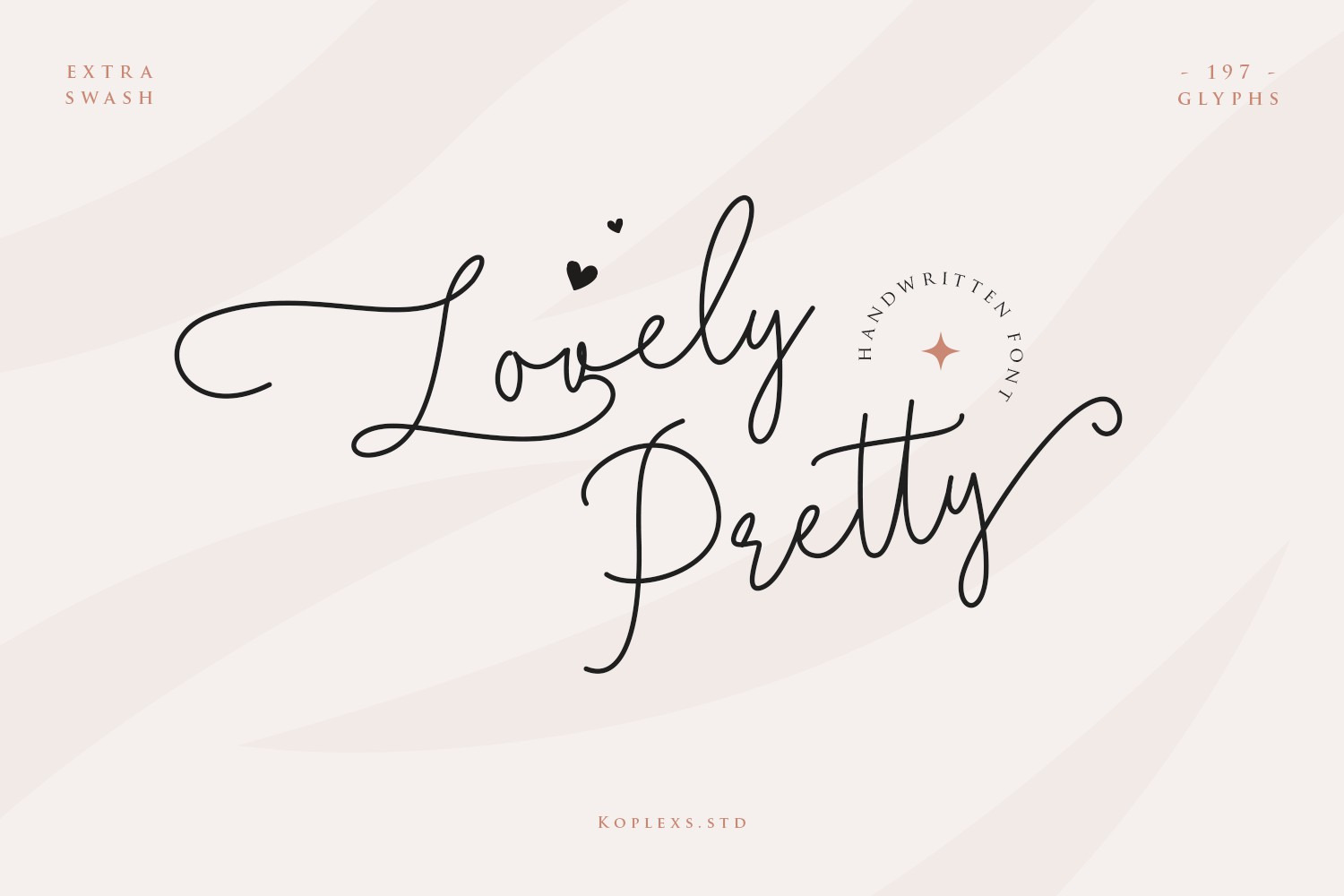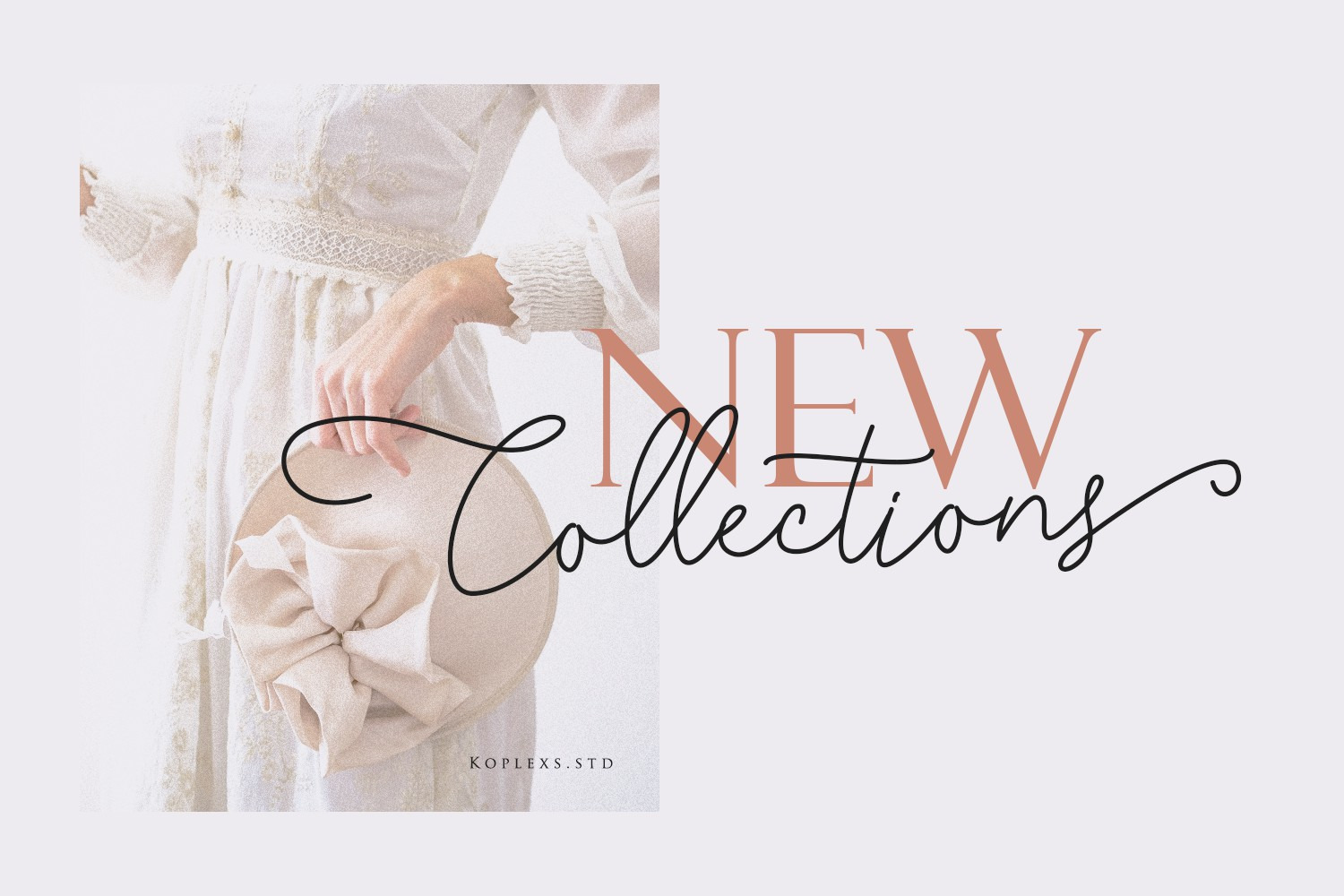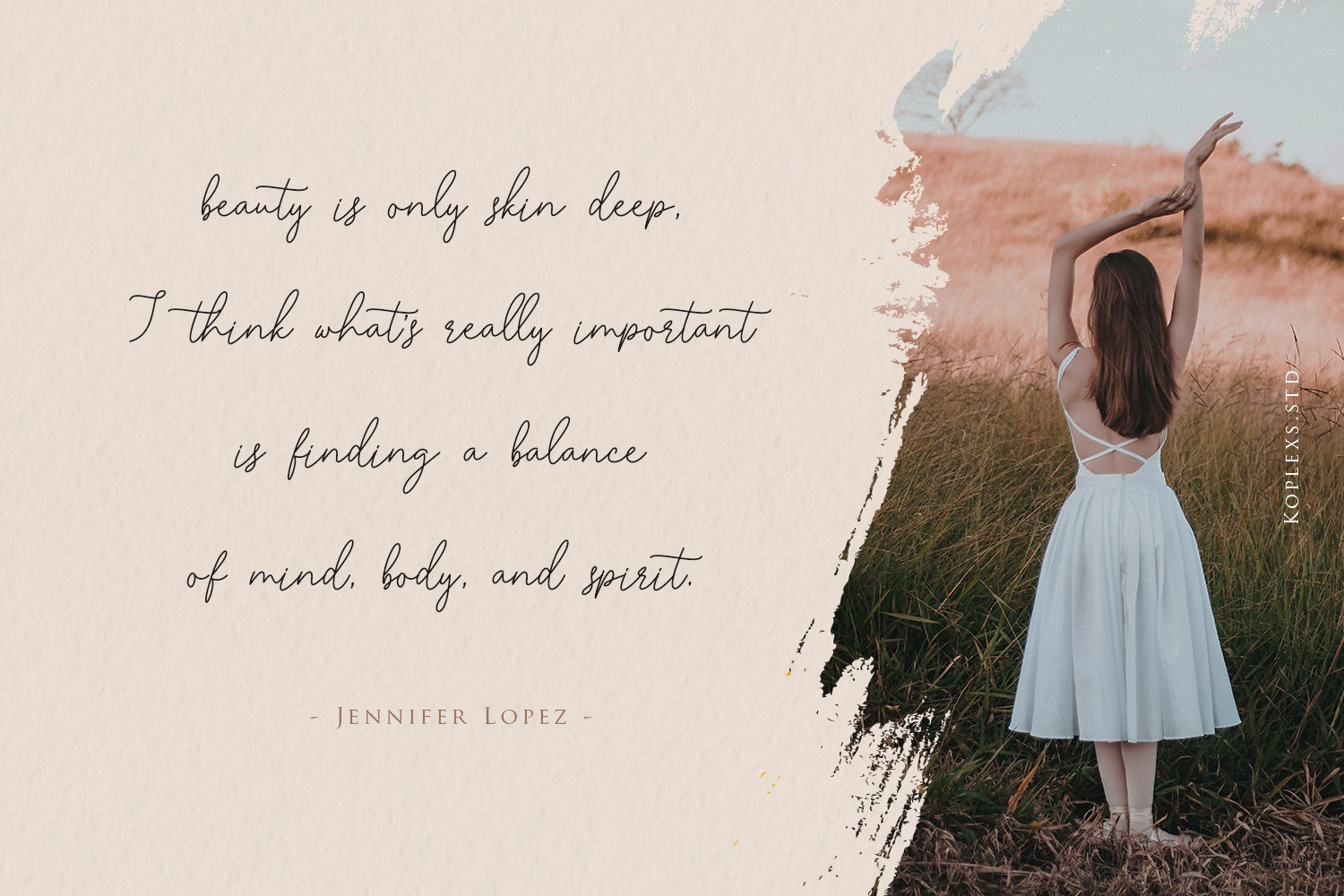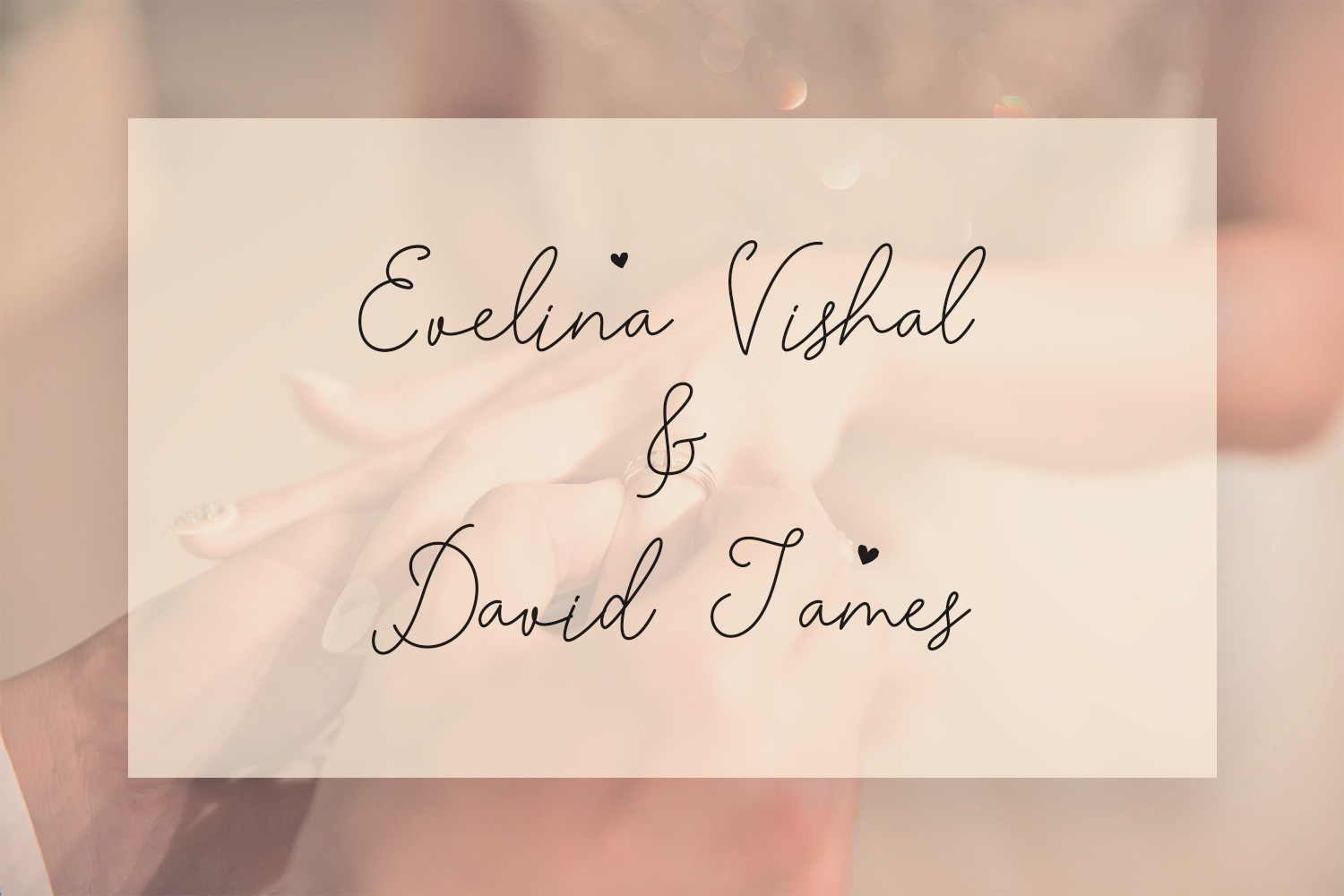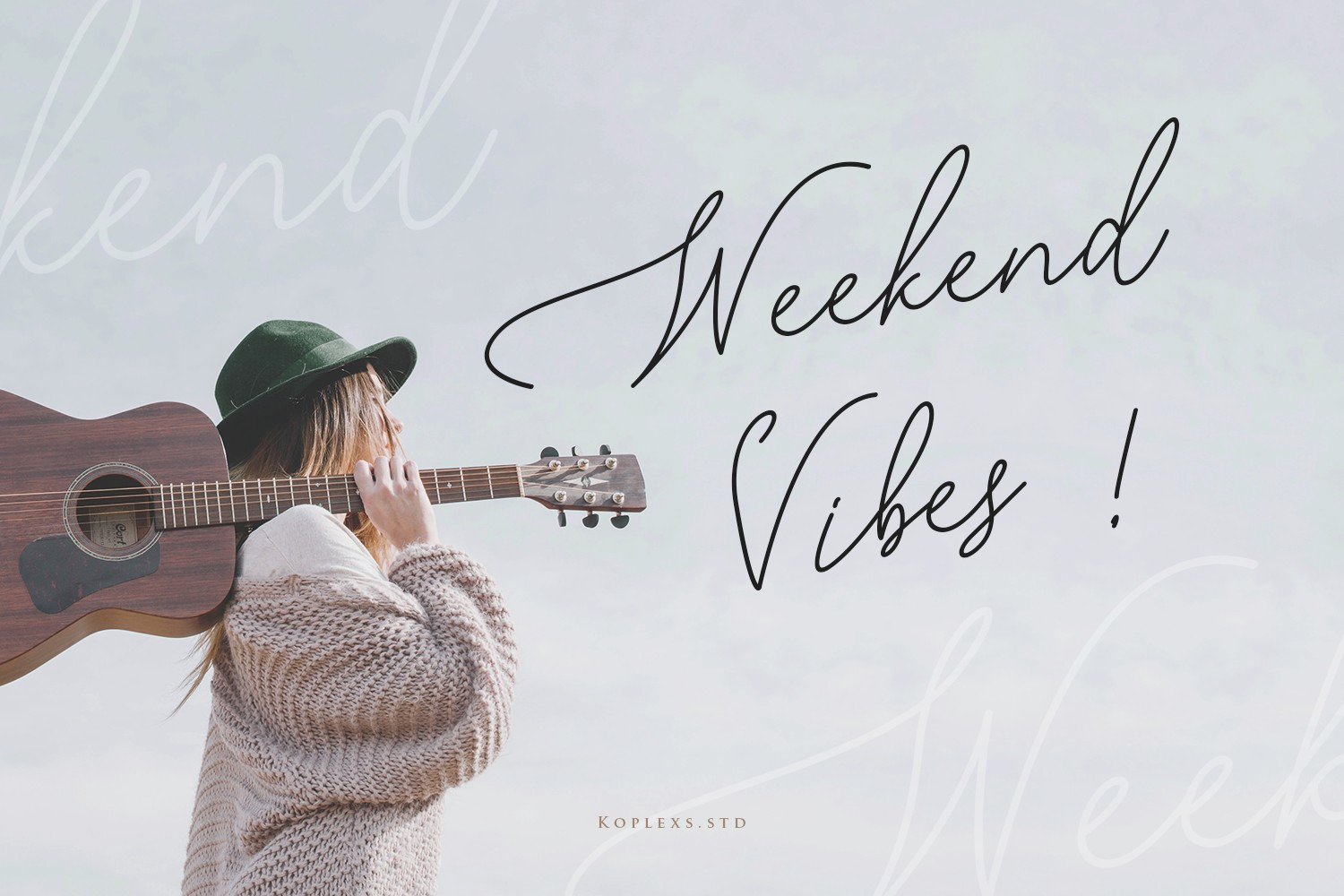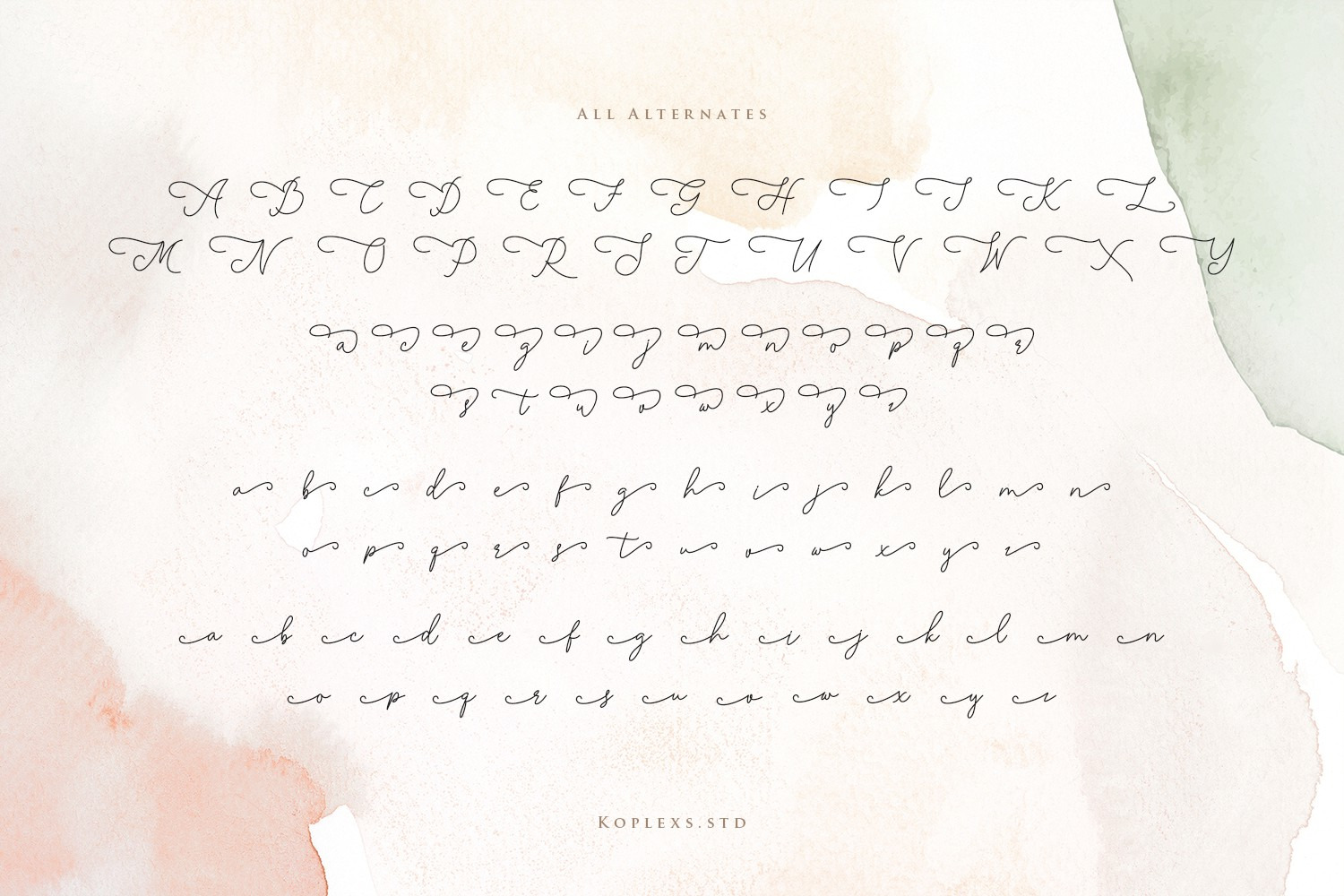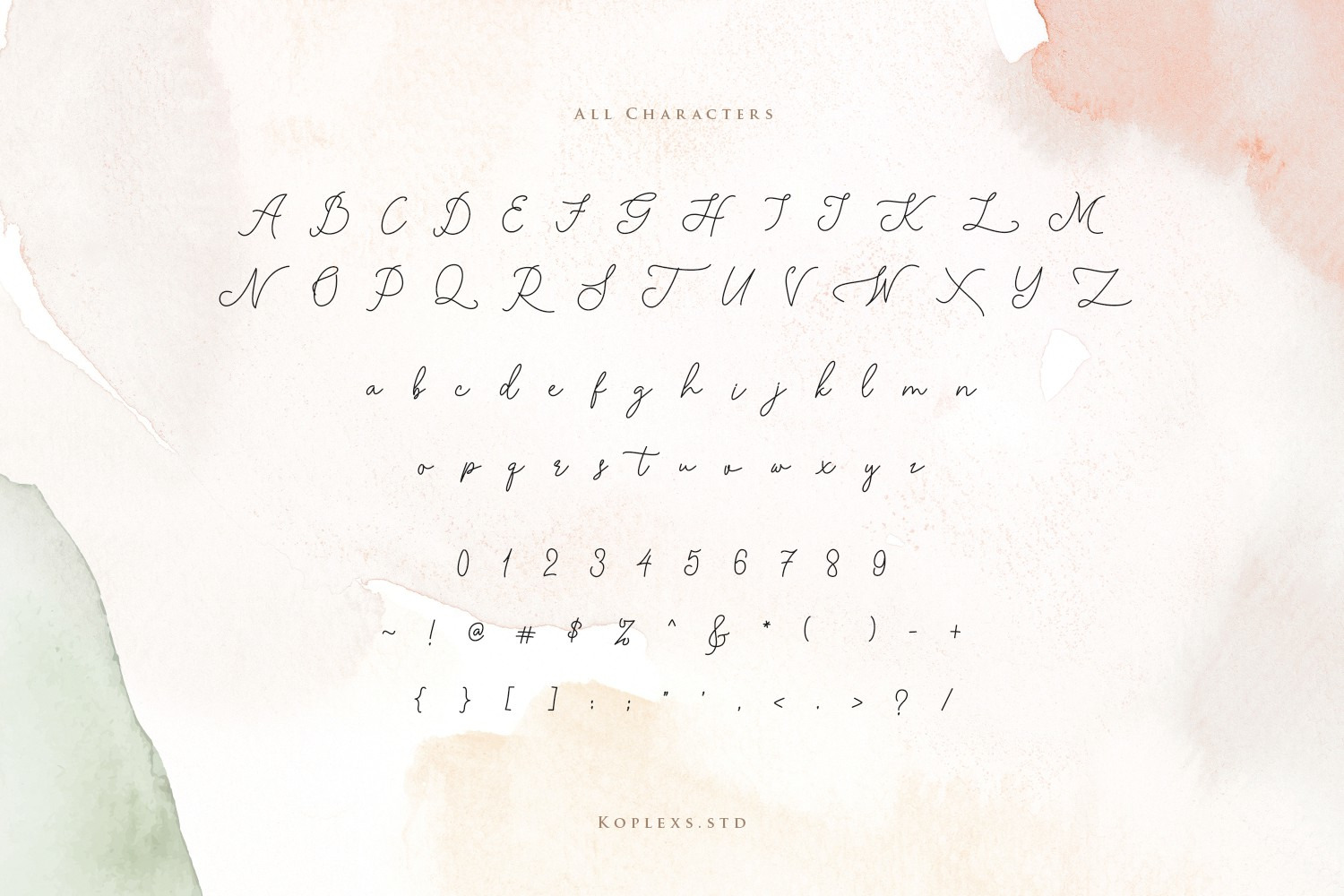
Lovely Pretty - Modern Handwritten Font
Lovely Pretty is a handwritten font featuring alternates.
Lovely Pretty is perfect for branding projects, logo, wedding designs, social media posts, advertisements, product packaging, product designs, label, photography, watermark, invitation, stationery and any projects that need handwriting taste.
- Ligatures Features